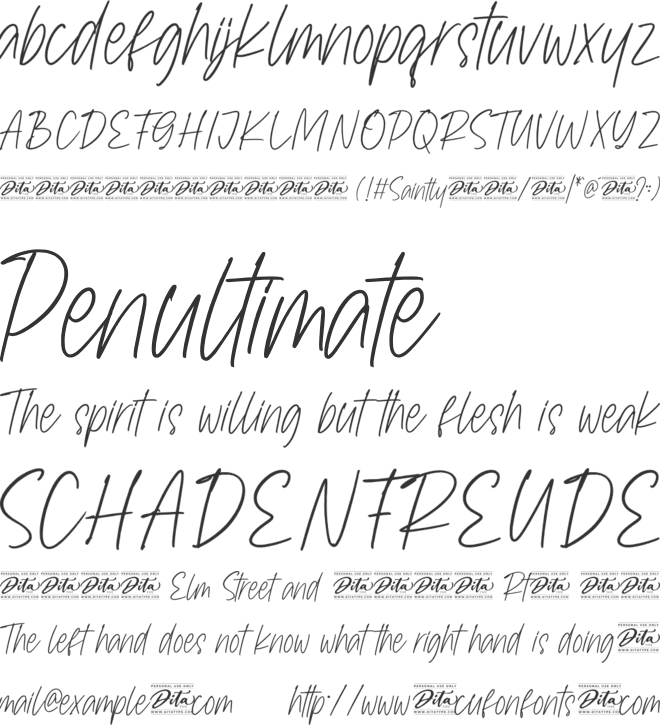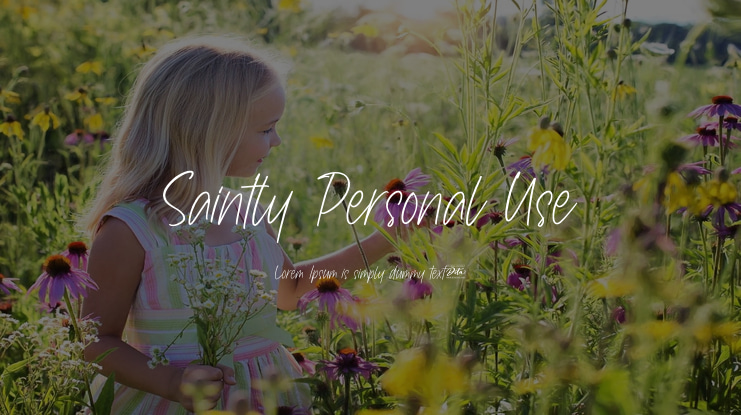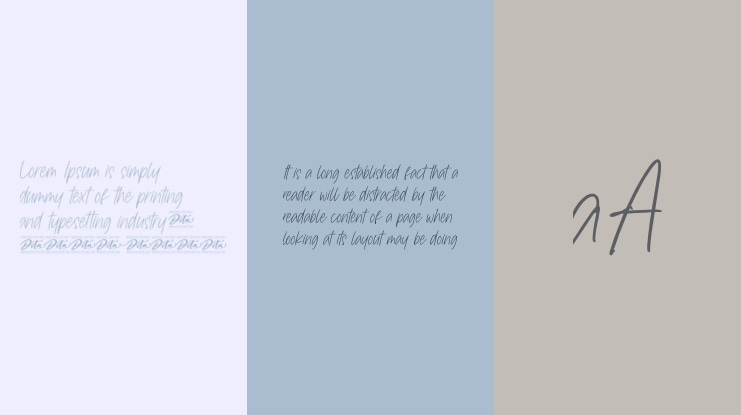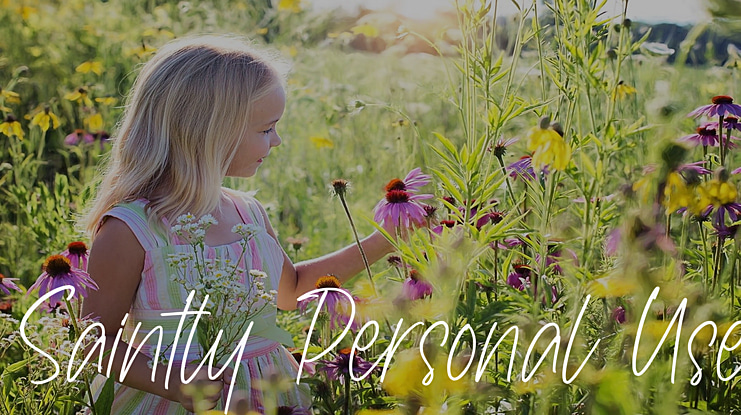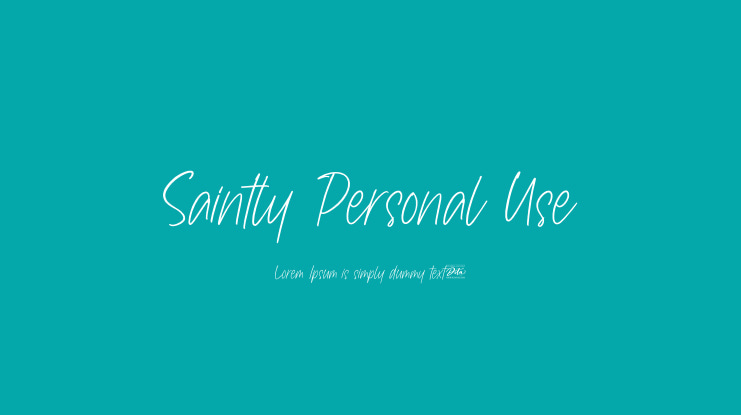
Saintley is a modern handwritten font. With a classy and natural handwritten style, it brings a classy and chic typeface. Saintley is best used for weddings, branding, logotype, and quotes.